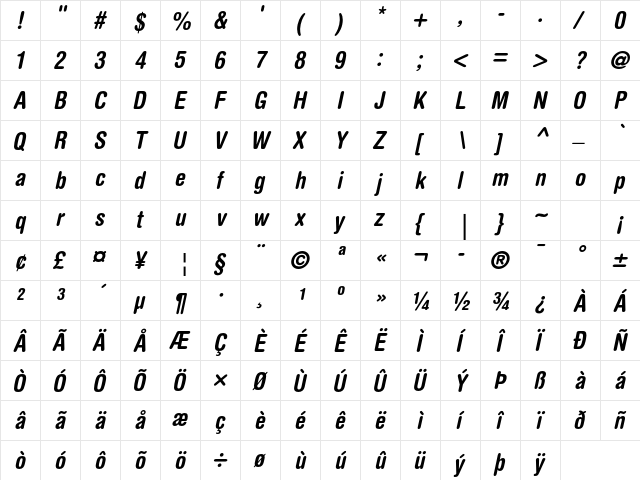
Helvetica Rounded LT Std Bold Condensed Oblique Font Preview
| Style | Bold Condensed Oblique |
Design Context for Helvetica Rounded LT Std Typeface
Helvetica Rounded LT Std softens its letterforms with rounded terminals, giving it an approachable, friendly quality that works well in consumer-facing and digital contexts. The dynamic lean of this cut emphasises speed and emphasis in any layout. The heavy weight commands attention and anchors typographic hierarchies.
Well-suited to UI design, mobile interfaces, and any brand that wants approachability without sacrificing clarity.
Font Pairing: Pairs well with a rounded or humanist sans for body copy, maintaining the friendly tone without relying on Helvetica Rounded LT Std to carry extended reading.
Pro Tip: Use Helvetica Rounded LT Std for UI elements, app interfaces, and anywhere a friendly, approachable tone needs to be maintained without sacrificing clarity.